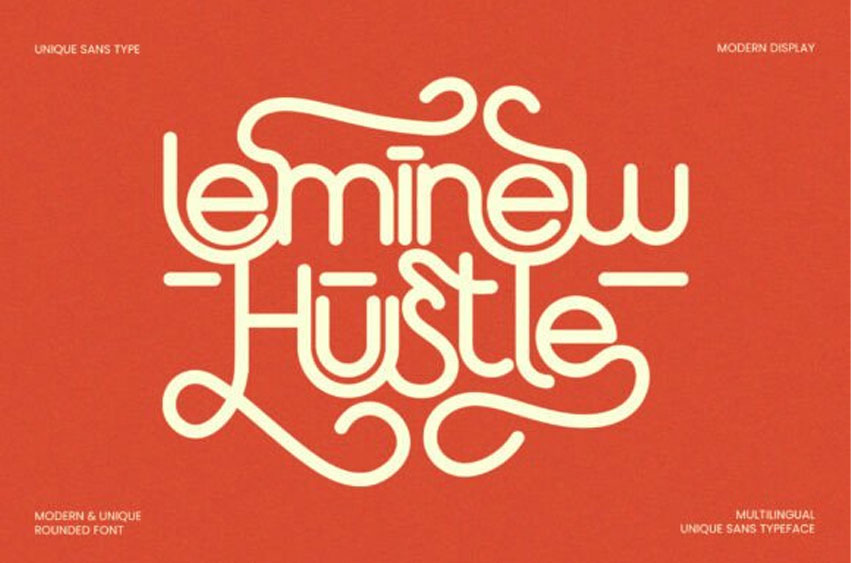
Leminew Font
Leminew Font is a modern rounded sans-serif font with a quirky twist.
Its unique ligatures and decorative swashes make it perfect for experimental branding, music posters, lifestyle products, or creative tech start-ups looking to stand out with bold personality.